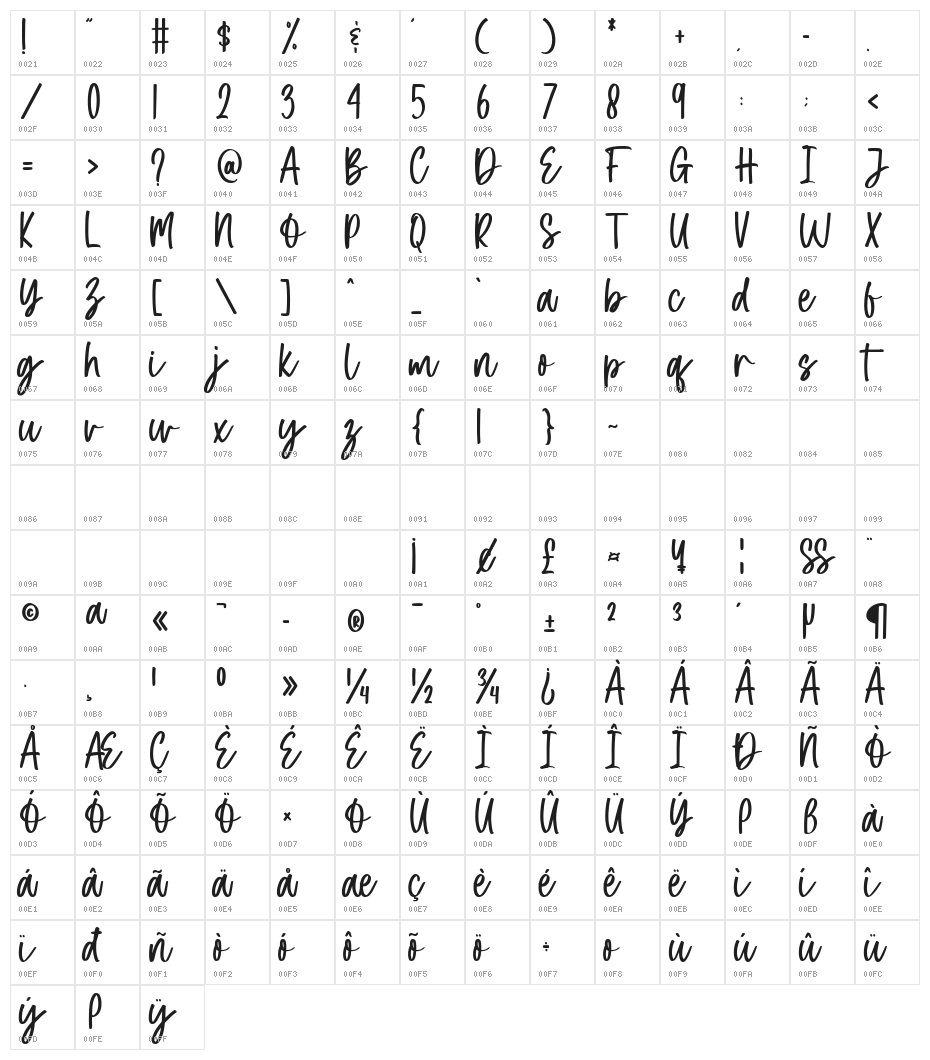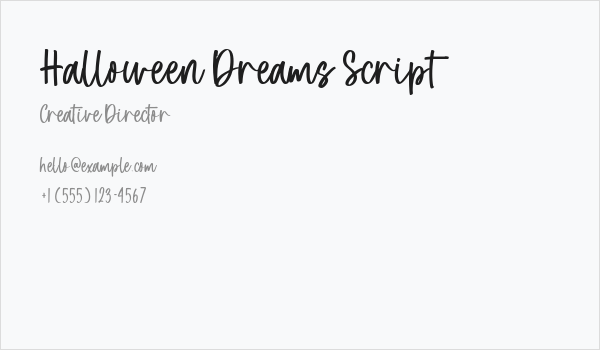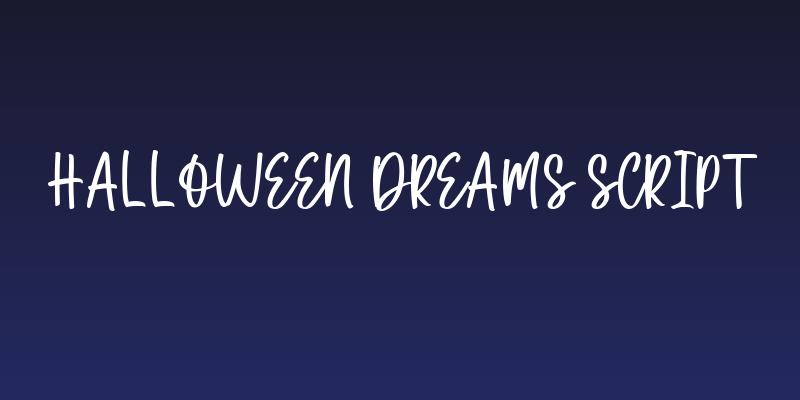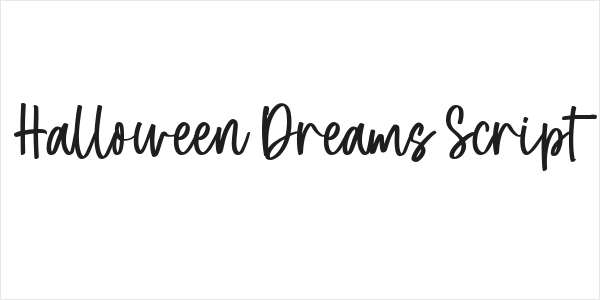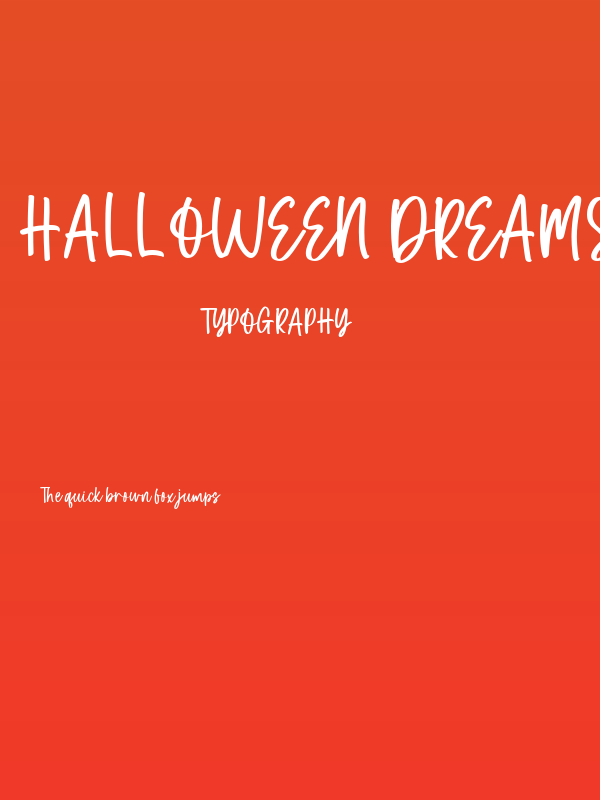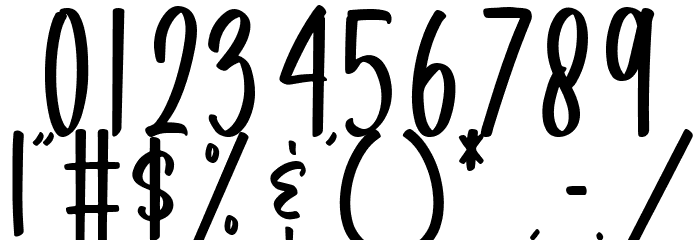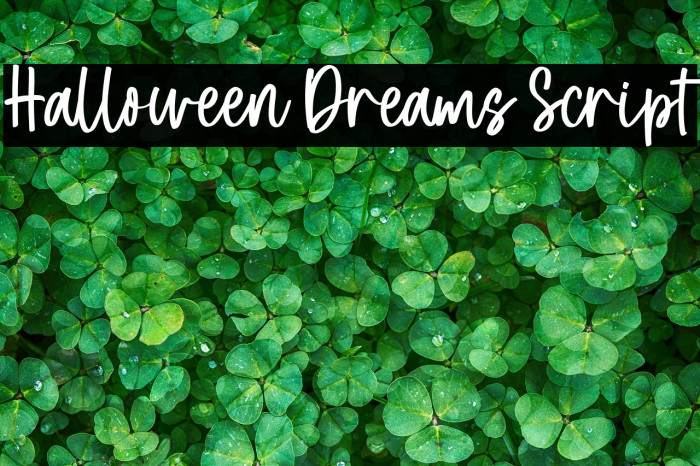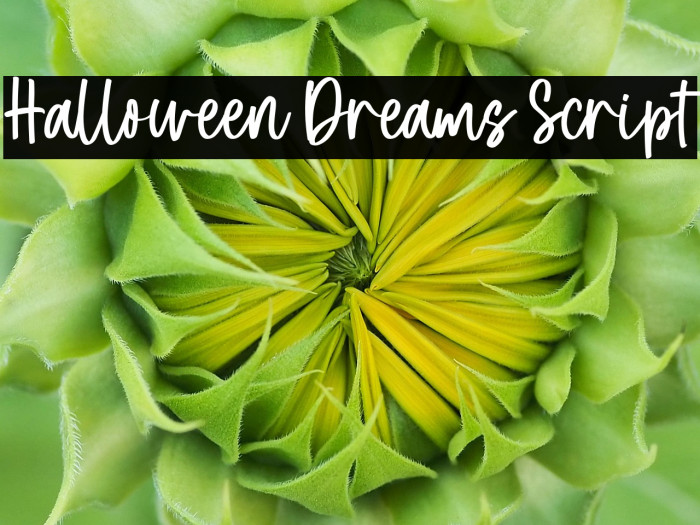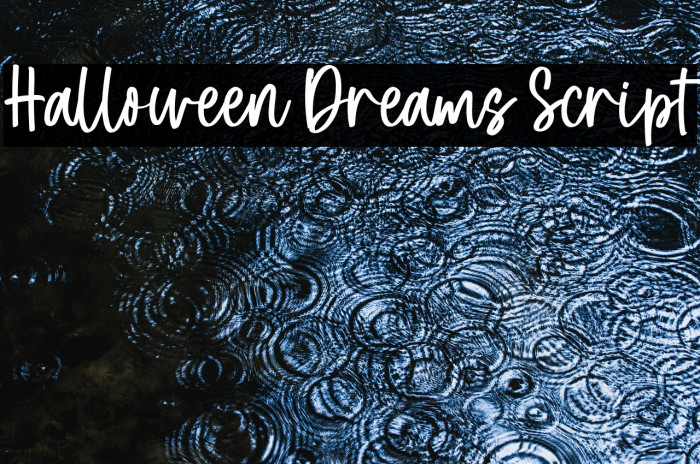
Halloween Dreams Script Font
This font features a playful and whimsical script style, characterized by its flowing, hand-drawn appearance. The letters are connected with smooth, rounded strokes, giving it an informal and friendly vibe. The uppercase letters maintain a consistent height, while the lowercase letters exhibit a slight slant, enhancing the casual feel. The numerals are bold and slightly taller than the lowercase letters, ensuring readability. Special characters are creatively integrated, maintaining the overall aesthetic. This font is ideal for projects that require a personal touch, such as invitations, greeting cards, or branding materials.
| Proposed Projects | Ideal for invitations, greeting cards, branding materials, and creative projects requiring a personal touch. |